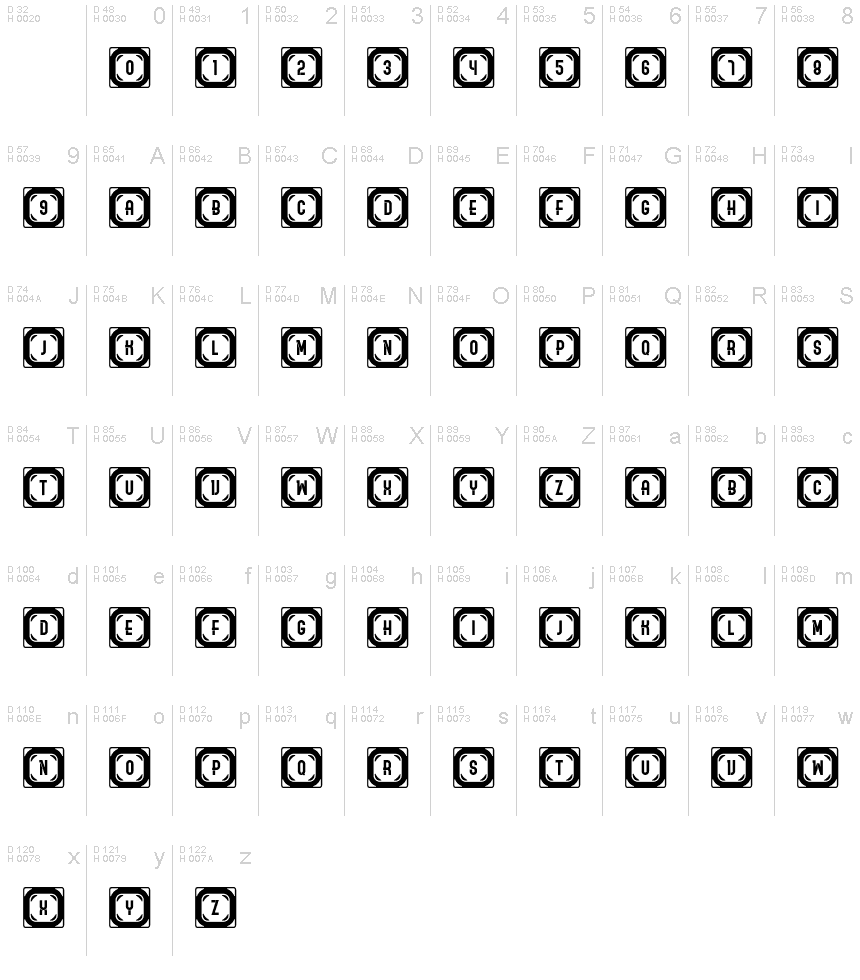
Ordinary Capitals Thin Regular
Ordinary Capitals Thin is a display font designed by Vladimir Nikolic, featuring a decorative style that's perfect for bringing a touch of elegance and sophistication to any project. With its condensed width, this semi-bold typeface offers a clean and modern look that's ideal for headlines, posters, logos, and branding materials. Its unique design elements are sure to catch the eye of your audience while also conveying professionalism and creativity. Whether you're designing an event invitation or crafting an advertising campaign, Ordinary Capitals Thin is the perfect font choice for any project that demands attention and originality.